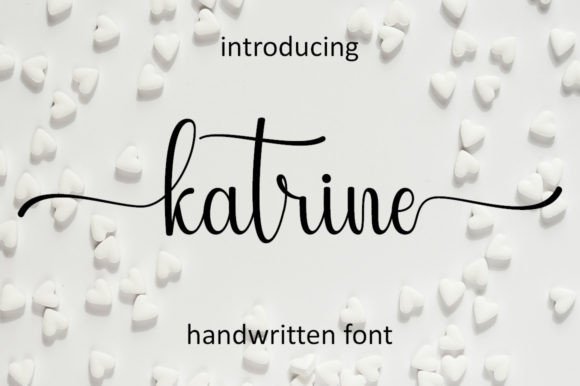
Behold Katrine Font, an enchanting script typeface, crafted by Hardiboy Design. Its characters perform a graceful ballet, dancing harmoniously along the baseline, creating an aura of elegance and visual delight. Let your designs bloom with the allure of Katrine Font, a treasure trove of creativity just waiting to be discovered.
Through its delicate strokes and swirling lines, Katrine Font captures the essence of handwritten artistry. Its carefully crafted glyphs and effortless swashes unite in perfect harmony, evoking a sense of intimacy and authenticity. Experience the joy of personalization as you transform ordinary words into exquisite works of art.
Step into a world of creative possibilities with Katrine Font. Its versatility knows no bounds, lending its charm to an array of design projects. From the timeless beauty of wedding invitations to the heartfelt warmth of thank-you cards, Katrine Font adds a touch of sophistication and elegance. Its presence graces logos and business cards, elevating them from mere designs to captivating reflections of your brand's identity.
Unleash your imagination and explore the endless possibilities of Katrine Font. Its PUA encoding grants you effortless access to a treasure trove of glyphs and swashes, empowering you to unleash your creativity like never before. With Katrine Font as your artistic companion, each design becomes a testament to your unique vision, a mesmerizing journey into the realm of visual enchantment.
Allow the enchanting allure of Katrine Font to captivate your audience and leave them spellbound. Its mesmerizing curves and graceful lines evoke a symphony of emotions, transforming your designs into captivating masterpieces. Experience the magic of Katrine Font today and embark on a creative odyssey that will redefine your artistic expression.